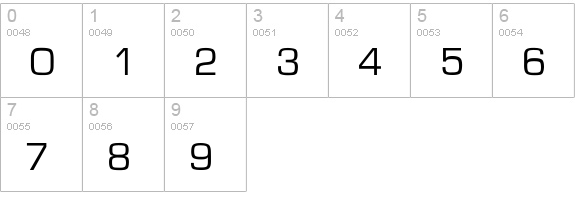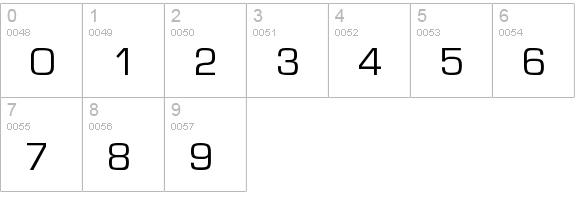
Eurostile-Roman Font Details
Eurostile-Roman is a modern and stylish font that exudes a sense of confidence and sophistication. Featuring clean lines and a bold presence, this typeface is perfect for making a statement in any design project. With its sleek and futuristic appearance, Eurostile-Roman is ideal for conveying a sense of professionalism and innovation. The best part? Eurostile-Roman is available for free download at FontsMarket.com. This means you can easily access and use this versatile font in your creations without any cost. Whether you're working on a branding project, poster design, or website layout, Eurostile-Roman offers endless possibilities to elevate your work and stand out from the crowd. Don't miss the opportunity to add this timeless font to your collection today!